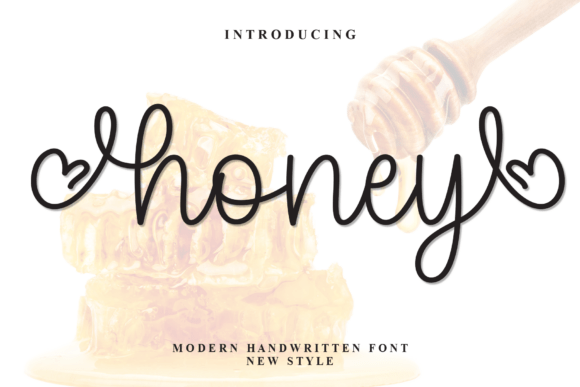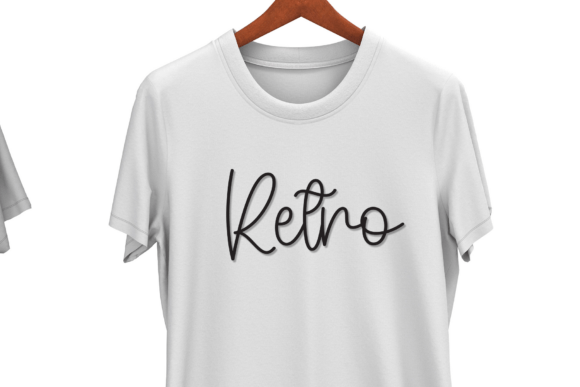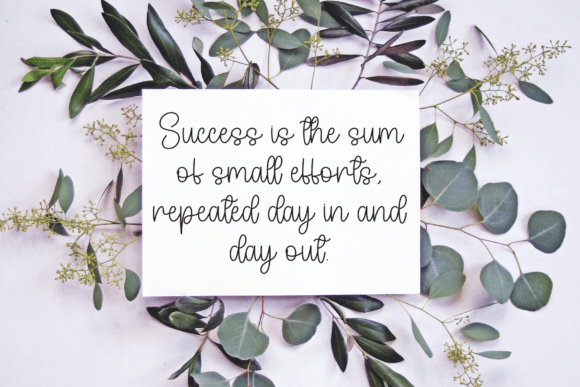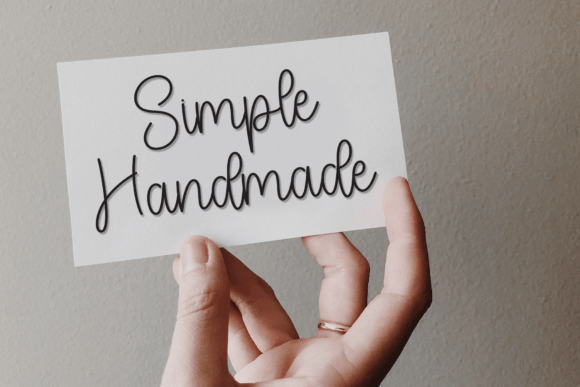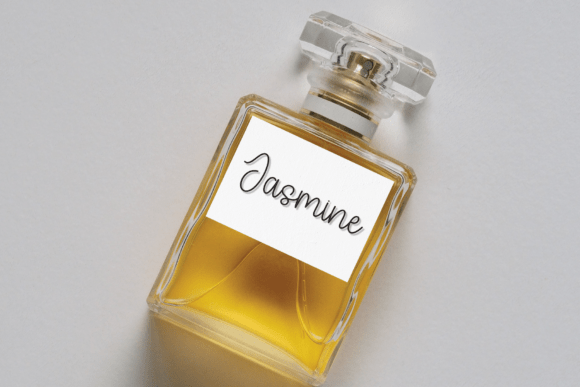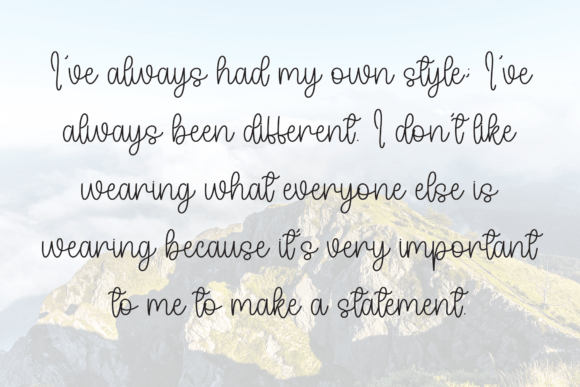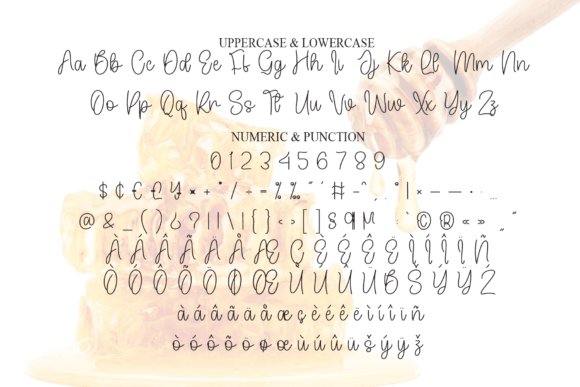
Discover the Sweet Spot in Typography
As designers, we’ve all been there – staring at a blank page, trying to bring an idea to life. The blank canvas can be intimidating, but sometimes it’s exactly what we need to spark creativity. It was on one of those moments that I stumbled upon Honey Font, a stunning script font that immediately caught my attention. Its elegant strokes and fluid curves reminded me of the beauty of hand-drawn calligraphy, but with a modern twist that made it feel fresh and exciting.
Honey Font is more than just a stylish addition to any design – it’s a versatile tool that adds a refined and sophisticated touch to logos, invitations, packaging, and social media graphics. With its natural flow and polished details, it’s a valuable asset for designers who want to elevate their work without sacrificing visual appeal.
Honey Font Key Features
- Font Family: Honey Font offers a unique, elegant script font family with multiple weights and styles, including Honey Regular, Honey Italic, Honey Bold, and Honey Bold Italic.
- Resolution: Designed to be resolution-independent, Honey Font looks great at any resolution, from small mobile screens to large-format prints.
- Unique Characteristics: Honey Font features a flowing, handwritten feel with subtle flourishes and ligatures, making it perfect for creative projects that require a personal touch.
- Font Pairing: Honey Font pairs well with sans-serif fonts like Open Sans or Lato, creating a beautiful contrast between the elegant script and clean sans-serif typography.
Honey Font Review
As a designer, I was excited to try out the Honey Font, and overall, I think it’s a solid addition to any design project. ✨ One of the things that really stands out is its unique blend of modern and classic elements. The font is both elegant and approachable, making it perfect for a wide range of applications, from logos and branding to body text and headings.
Here are some of the things that I like about the Honey Font:
- ✨ Beautifully crafted ligatures and connections between letters, giving it a natural and fluid feel
- ✨ A wide range of weights and styles to choose from, making it easy to customize and adapt to different design needs
- ✨ Excellent legibility, even at smaller font sizes, making it perfect for digital applications
However, I do have a few concerns:
- ⚠️ Some of the more ornate elements can be a bit over-the-top, making it difficult to use in more conservative or traditional design contexts
- ⚠️ The font can be a bit heavy on system resources, which may cause issues on lower-end hardware or older devices
Overall, I think the Honey Font is a great choice for designers looking for a versatile and stylish font. While it may not be perfect for every project, it’s definitely worth considering for a wide range of applications.
Honey Font is perfect for creating elegant and modern designs. Use it for:
– Luxury branding and packaging
– High-end advertising and marketing materials
Remember to use Honey Font in conjunction with other elegant design elements to create a cohesive and sophisticated look.